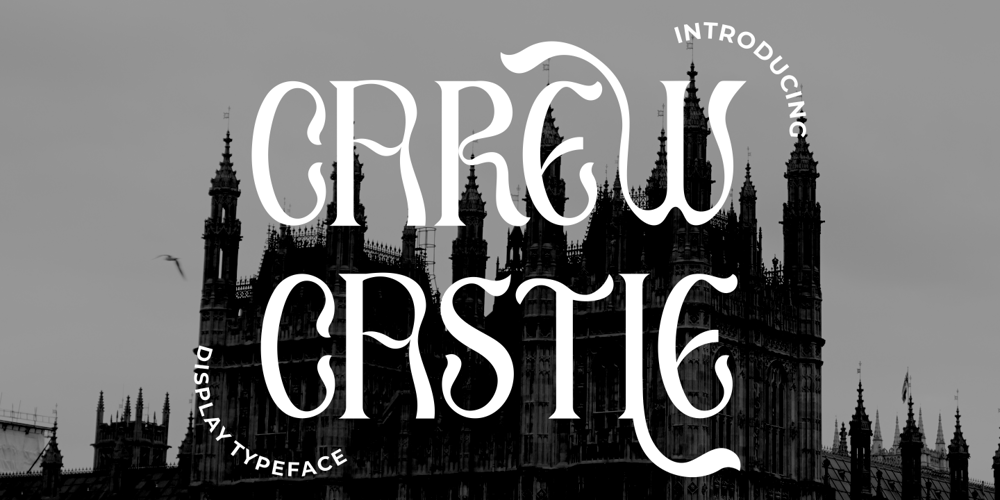
Carey Castle Font Family was designed by Putra Novembria Candra Kusuma and published by Putracetol. Carey Castle contains 1 styles and family package options. Introducing Carew Castle, a new display sans font inspired by luxury displays from classic book covers and combined with an elegant typeface style. With a total of 291 glyphs, this font offers endless display combinations for your lettering needs.Carew Castle comes packed with open type features, including numerous alternates and end swashes, to help you create amazing lettering. The font also supports multiple languages, making it a versatile choice for a wide range of design projects.Carew Castle is best used for logotypes, headings, covers, posters, logos, quotes, product packaging, headers, merchandise, social media, greeting cards, and more.To access the alternate glyphs, you will need a program that supports OpenType features, such as Adobe Illustrator CS, Adobe Photoshop CC, Adobe InDesign, or CorelDRAW.The zip package includes Carew Castle in otf, ttf, and woff formats, and comes with a range of features, including uppercase and lowercase letters, opentype alternates and ligatures, numbers, punctuation and symbols, and multilanguage support.Thanks for choosing Carew Castle – we can’t wait to see what amazing designs you create